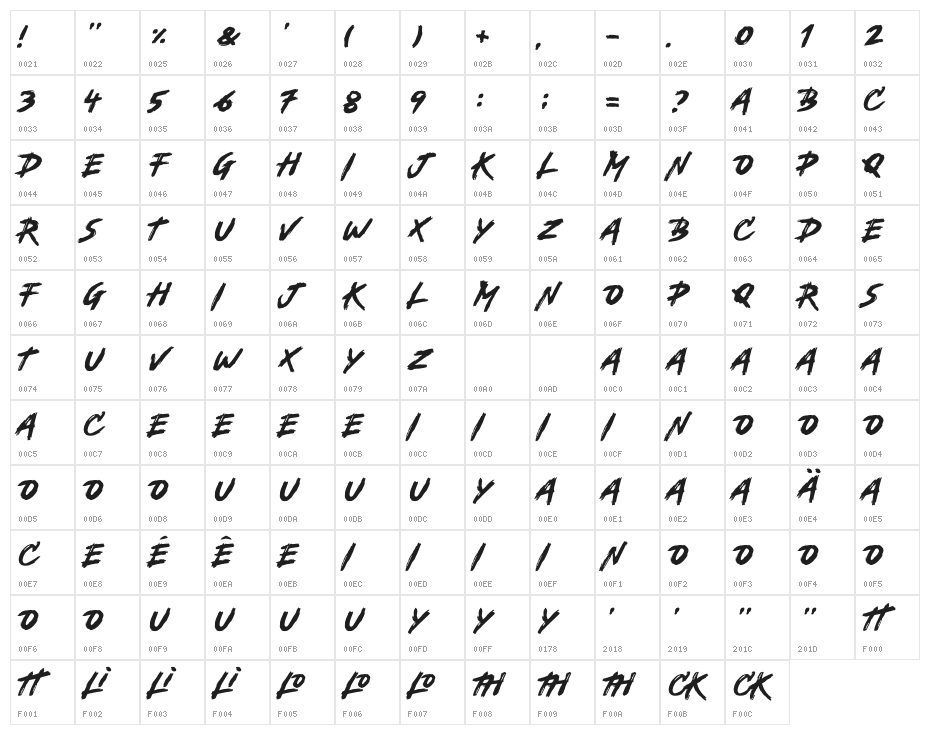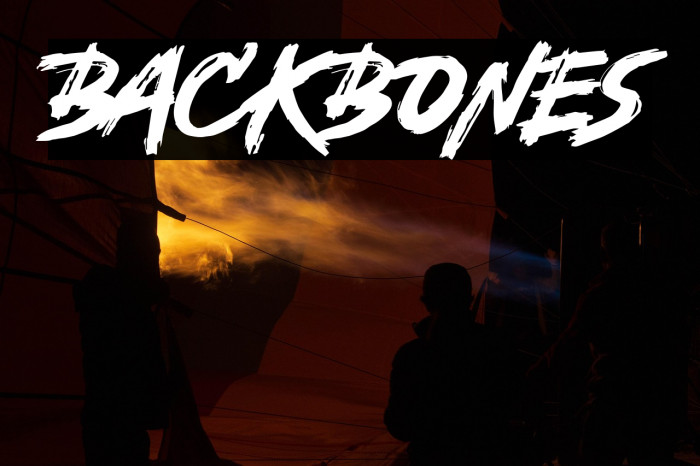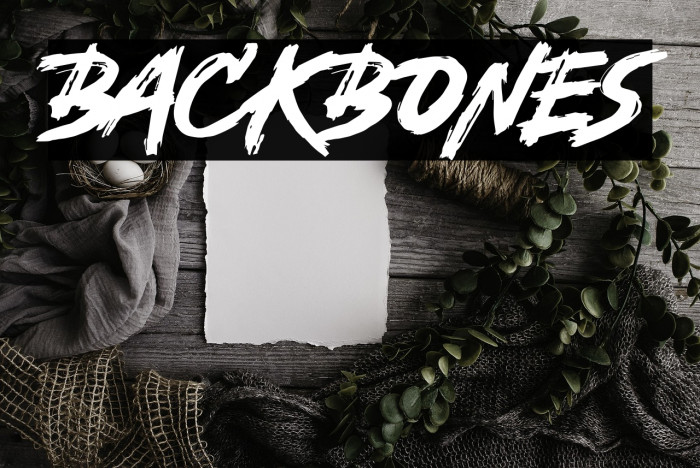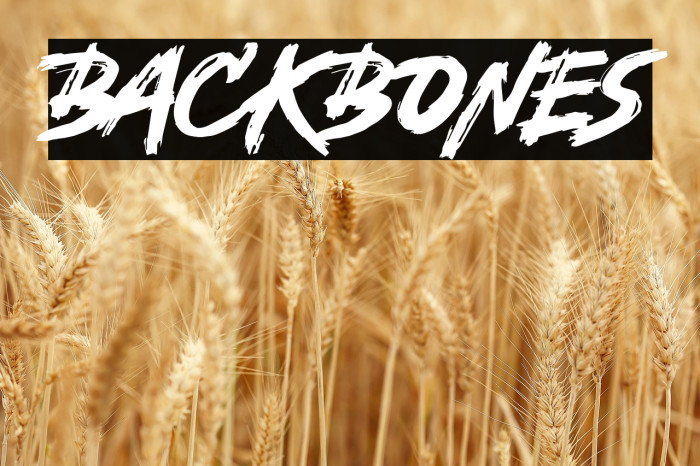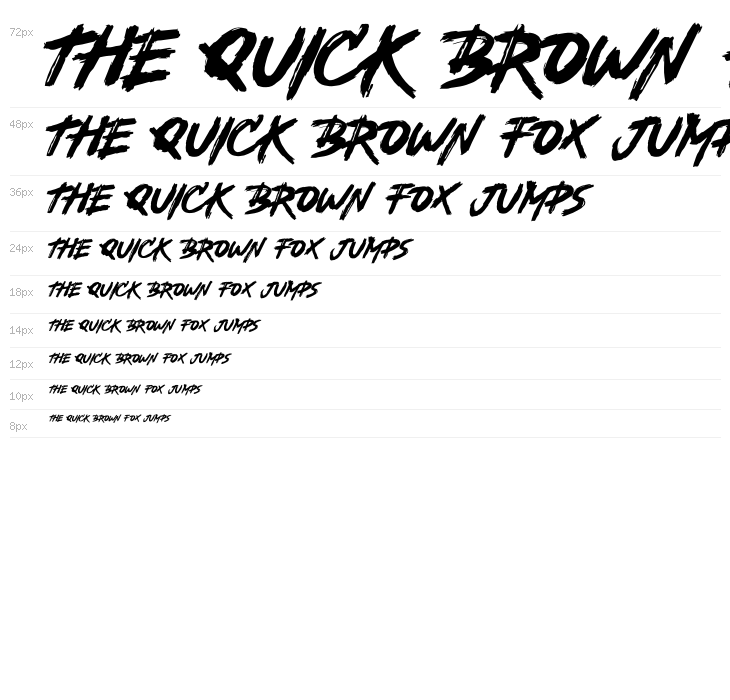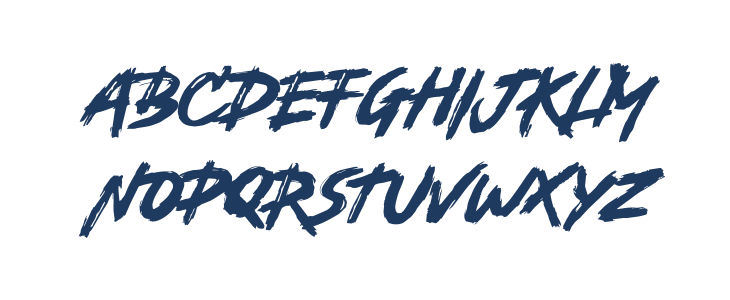
Backbones Font
Backbones Description
This font exudes a bold and dynamic energy, characterized by its brush-like strokes and expressive, hand-drawn appearance. The letters are crafted with a sense of motion and spontaneity, giving it a raw and artistic feel. The uppercase and lowercase letters maintain a consistent style, with sharp angles and varying stroke widths that add to its dramatic flair. Numbers and special characters follow the same energetic design, making the font versatile for creative projects. Its unique style is perfect for capturing attention and conveying a sense of urgency or excitement.
| Proposed Projects | Ideal for posters, album covers, branding, and any project requiring a bold, artistic touch. |